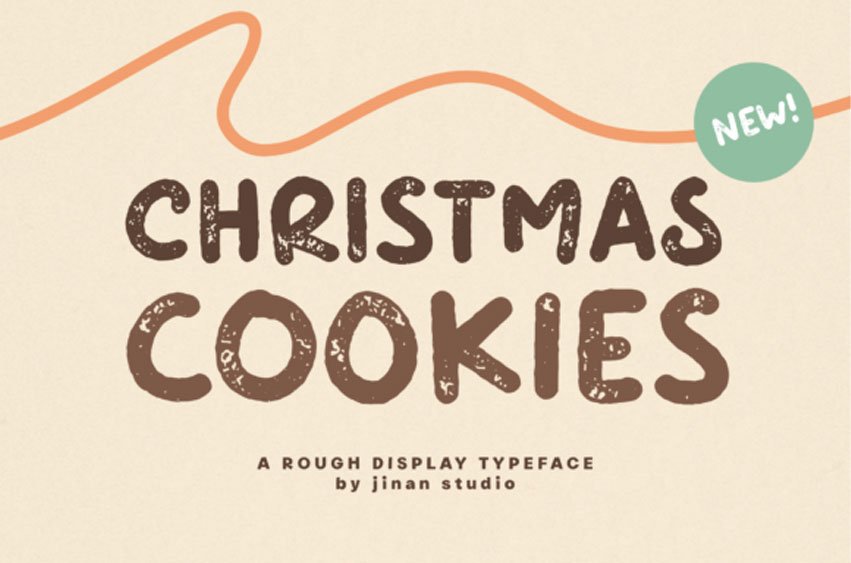
Christmas Cookies Font is a fun and rough display font that brings the cozy warmth of the holiday season to your designs.
Its chunky, textured letters add a handmade touch, perfect for Christmas cards, festive packaging, posters, and more. Bring sweet holiday cheer to every project with Christmas Cookies!